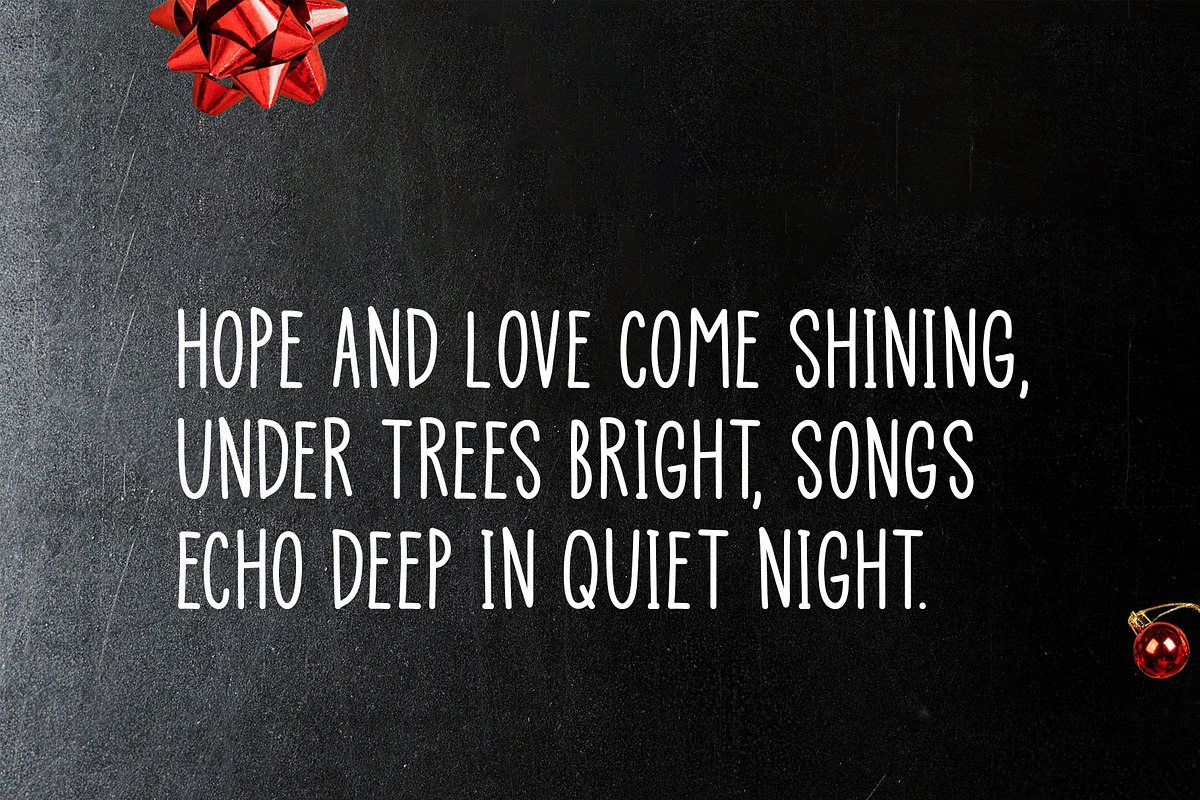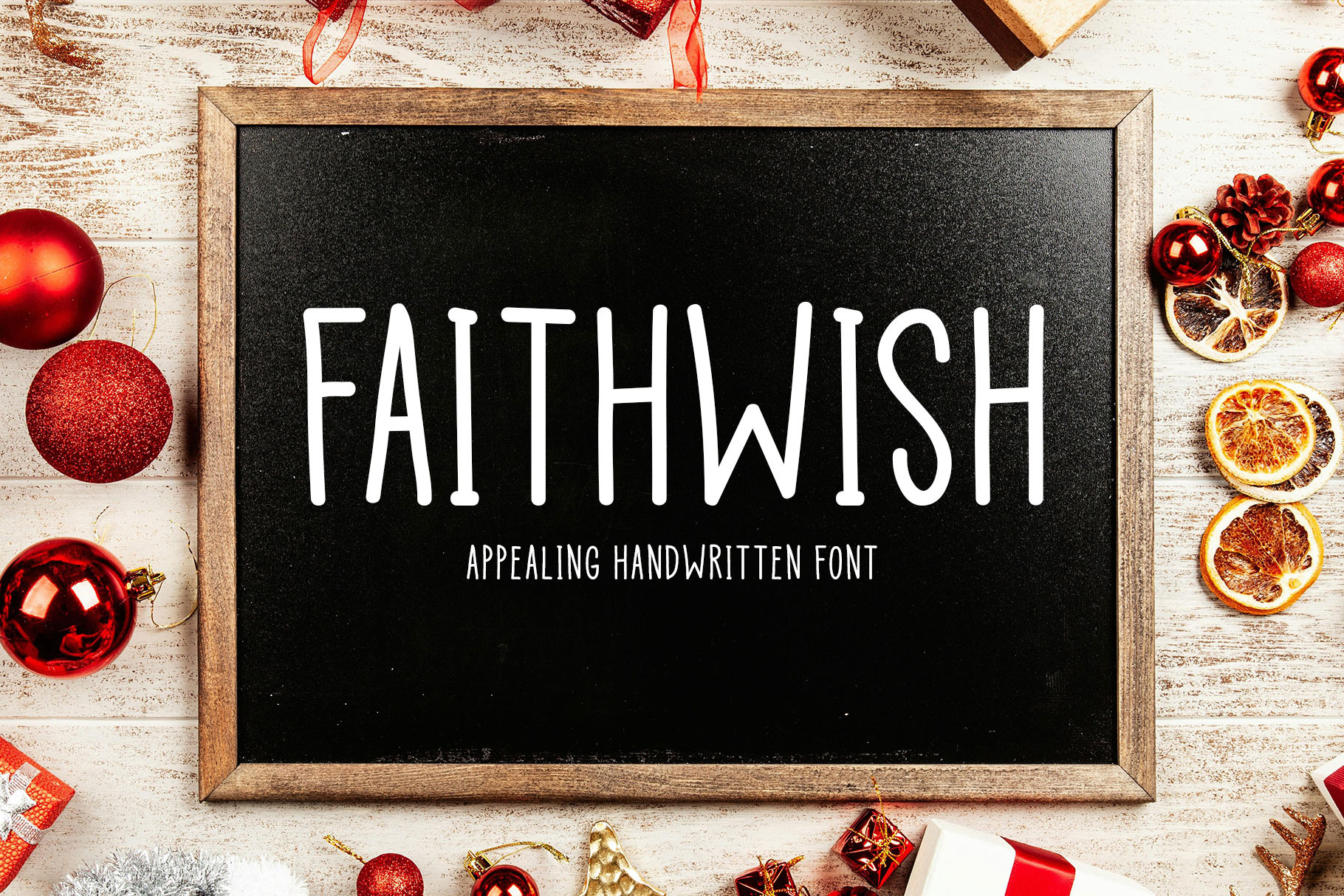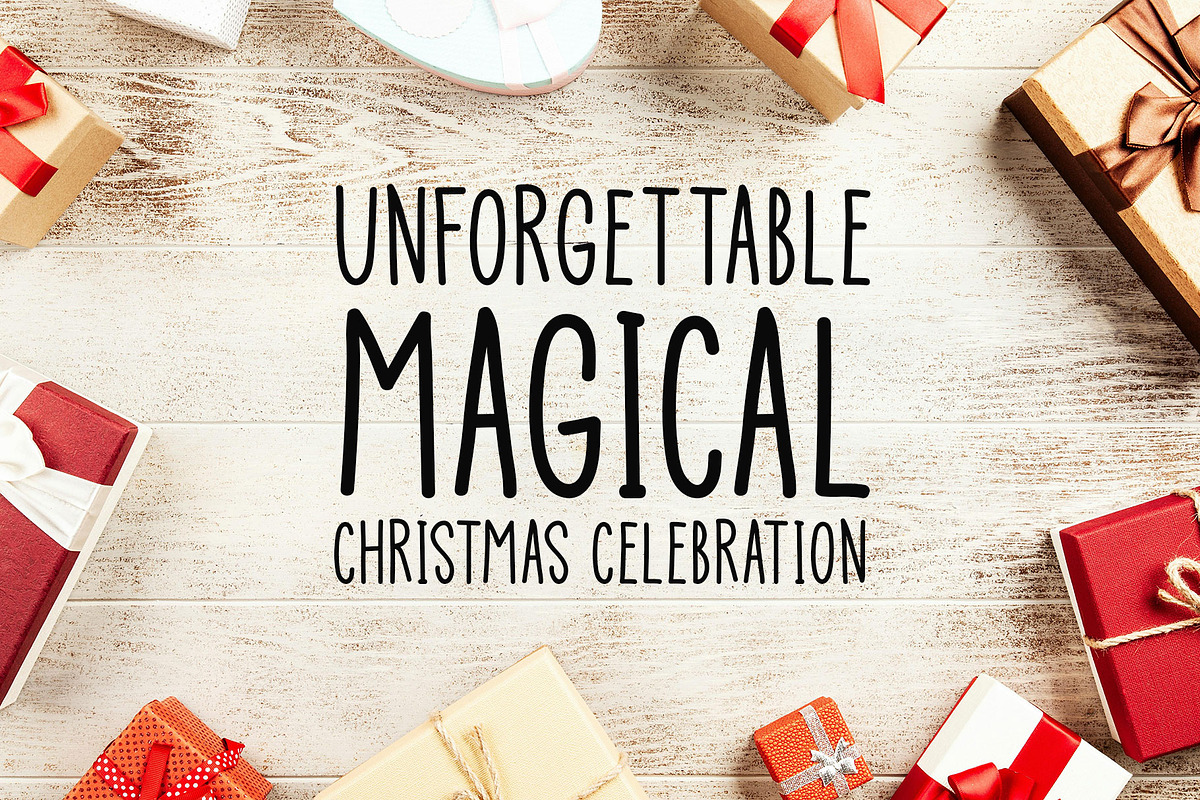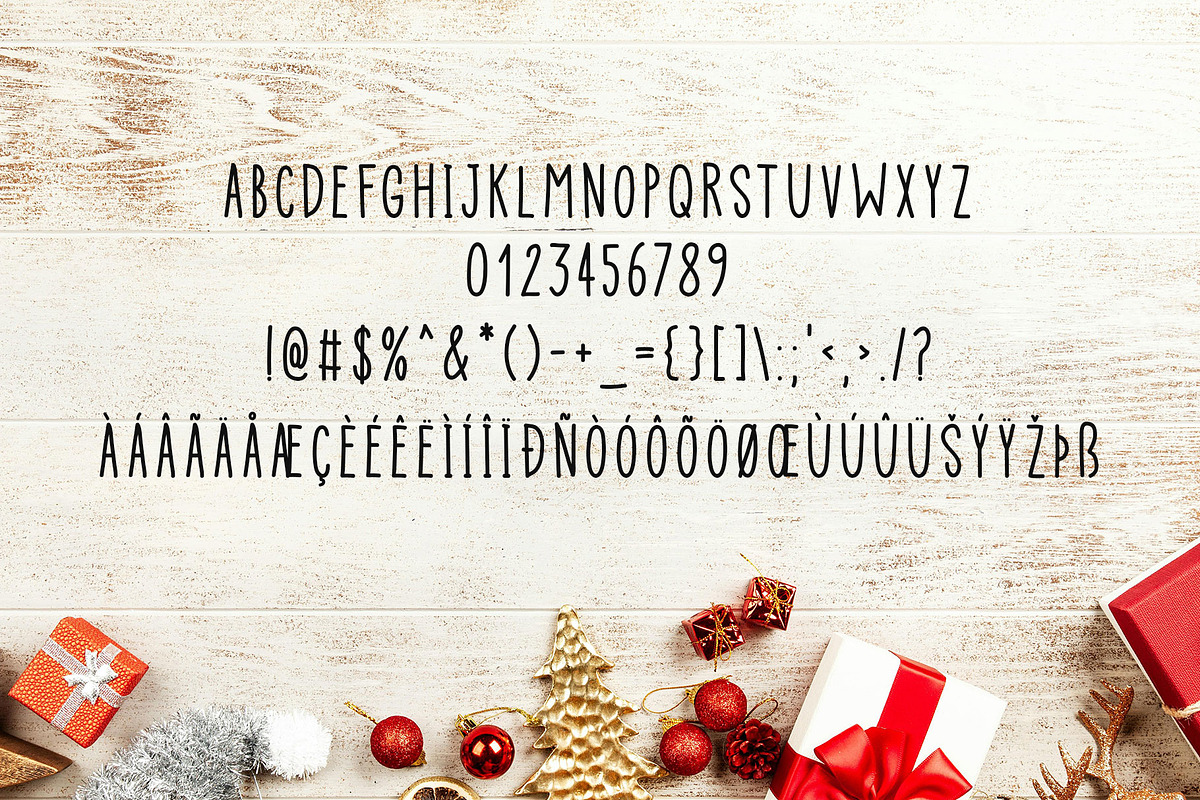
Faithwish Typeface
Introducing Faithwish!
Faithwish is a beautifully crafted handwritten font that combines cuteness with elegance. Ideal for creating memorable designs, it works perfectly on t-shirts, flyers, branding, greeting cards, social media posts, music artwork, and print projects. Whether for festive occasions or everyday designs, this font infuses your work with warmth and creativity.
Includes a range of multilingual support